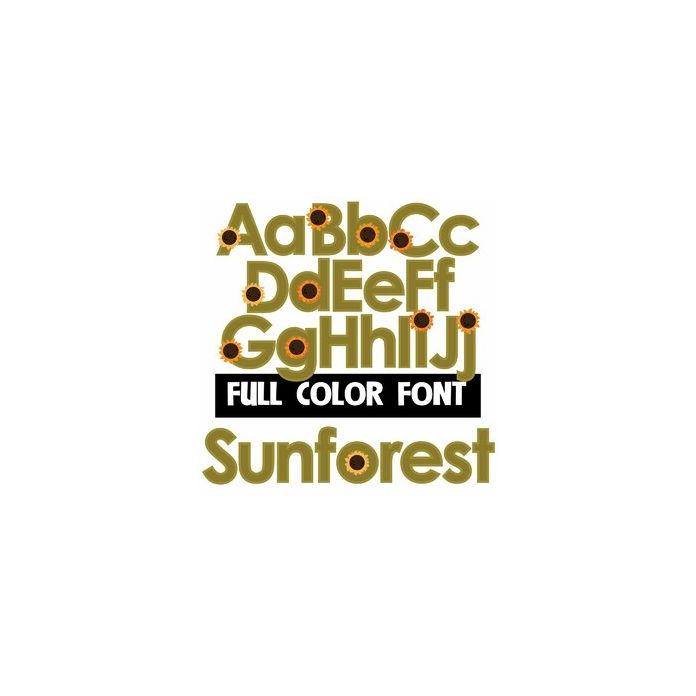
This full-color font features sunflowers on green letters. This font works best for titles, displays, posters and more. Please note color fonts will show as black in non compatible programs. This font type is compatible with Silhouette Studio.